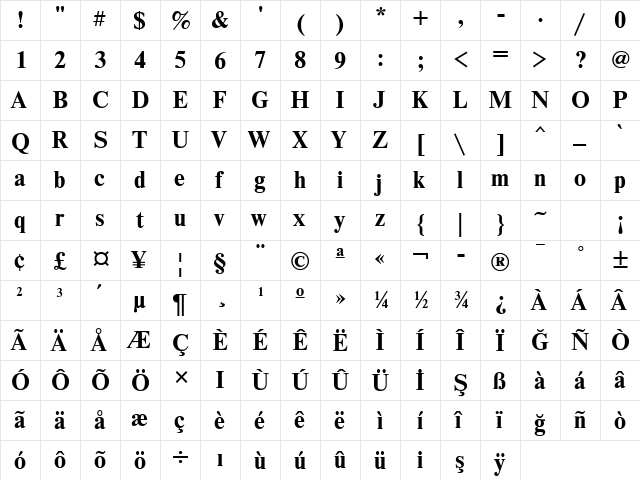
NewtonTTT Bold
Design Context for NewtonTTT Typeface
NewtonTTT takes a measured approach to typography — its balanced proportions and neutral character make it a reliable workhorse for both digital and print work. The heavy weight commands attention and anchors typographic hierarchies.